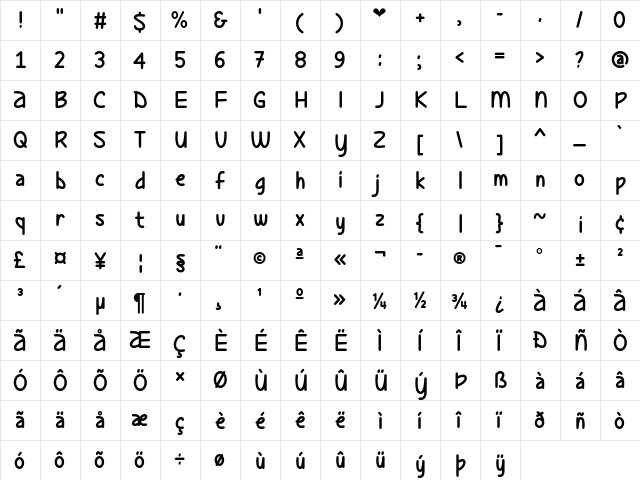
Ladybug Love Regular
| Foundry | Misti's Fonts |
| Designer | Misti's Fonts |
Design Context for Ladybug Love Typeface
Ladybug Love is a composed and adaptable typeface that performs quietly and consistently across a wide range of design contexts.
Pro Tip: Pair Ladybug Love with a font of contrasting weight or personality to build a more expressive typographic hierarchy.